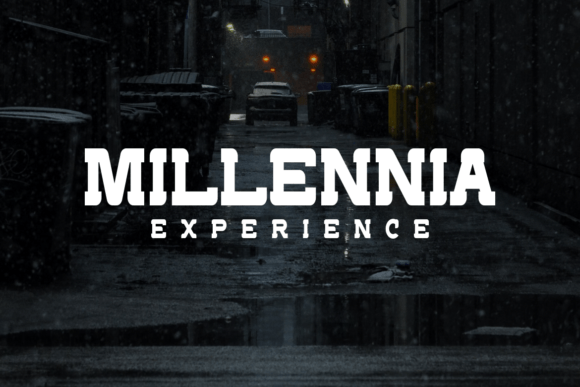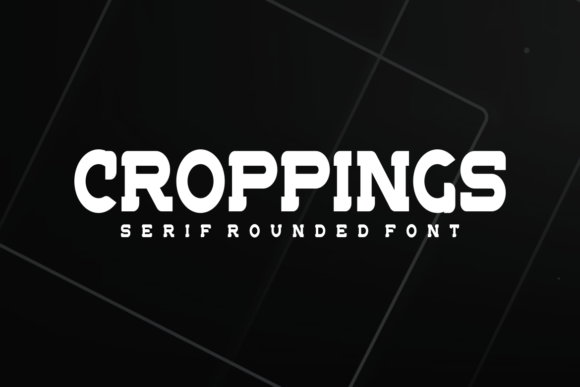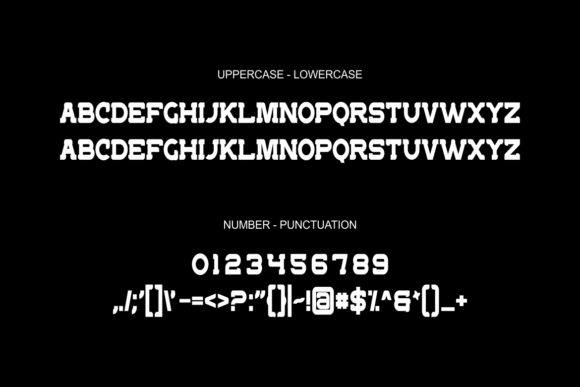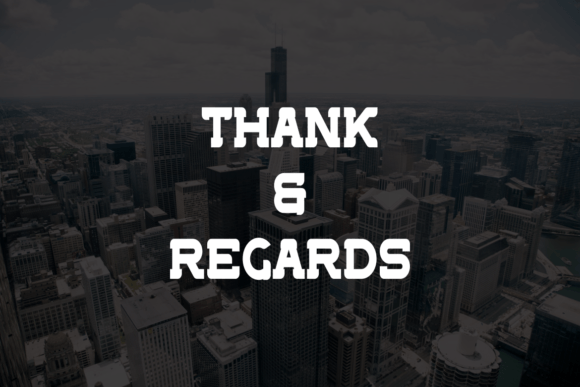
Introduction to Croppings Font
As a designer, there’s nothing quite like the thrill of discovering a new font that perfectly captures the essence of your creative vision. For me, that moment came when I stumbled upon the Croppings Font – a modern serif font that exudes style and sophistication. Its thick, bold letters are a game-changer for adding impact to any project, from logos to headlines.
With its clean design and transparent background, the Croppings Font is a valuable resource for designers looking to elevate their work. Whether you’re working on a free download project or a high-end commercial design, this font is sure to make a statement. Its versatility and elegance make it a must-have for any creative project, and its free availability makes it an accessible design resource for designers of all levels.
As I began experimenting with the Croppings Font, I was blown away by its ability to add a touch of sophistication to even the most straightforward designs. Its bold, eye-catching style is perfect for making a lasting impression, and its high-quality design ensures that it will remain a timeless classic for years to come.
Key Features of Croppings Font
- Croppings Font is a free download design resource ideal for creative projects, offering a high-quality, unique aesthetic.
- This font features a transparent background, allowing for seamless integration into various design compositions.
- The font size is scalable, making it suitable for use in various design contexts, from small to large-scale creative projects.
- Croppings Font boasts a high resolution, ensuring crisp and clear text rendering, even at larger font sizes.
- This font is designed to be versatile, suitable for use in various creative fields, including graphic design, digital art, and more.
- Croppings Font’s unique characteristics make it an excellent addition to any designer’s toolkit, offering a distinctive and eye-catching aesthetic.
Honest Review: Croppings Font
I recently stumbled upon the Croppings Font while searching for a unique design resource to enhance my creative project. As a designer, I was excited to dive in and see what this font had to offer.
Here are the pros and cons of the Croppings Font:
- ✨ High-quality design that’s perfect for creative projects: The Croppings Font boasts a unique, hand-drawn style that’s both elegant and quirky. I loved using it to add a personal touch to my designs.
- ✨ Transparent background: The font’s transparent background made it easy to integrate into my designs without any hassle.
- ⚠️ Limited font styles: While the font itself is beautiful, it’s a bit limited in terms of font styles. I wish there were more options available.
- ⚠️ Not suitable for large text: Due to its unique design, the Croppings Font doesn’t work well for large text sizes. It’s best used for smaller text or titles.
Overall, I’m impressed with the Croppings Font. While it has its limitations, it’s a great design resource for creative projects and can add a unique touch to your designs. If you’re looking for a free, high-quality font, I’d definitely recommend checking it out.
Tips for Getting the Most Out of Croppings Font
To get the most out of Croppings Font, use it in conjunction with a transparent background to create a clean and modern look. Experiment with different font sizes and colors to add visual interest to your designs.
Croppings Font is commonly used in:
- Print design and marketing materials
For optimal results, it is recommended to use the Croppings Font at a resolution of 300 DPI or higher. This ensures that the font appears crisp and clear, even when used for large-scale designs or high-quality prints.
Can I use the Croppings Font with a transparent background?
Yes, the Croppings Font has a transparent background, making it ideal for use on images or designs with a clear background. This allows designers to create visually appealing and creative projects with a seamless integration of text and graphics.